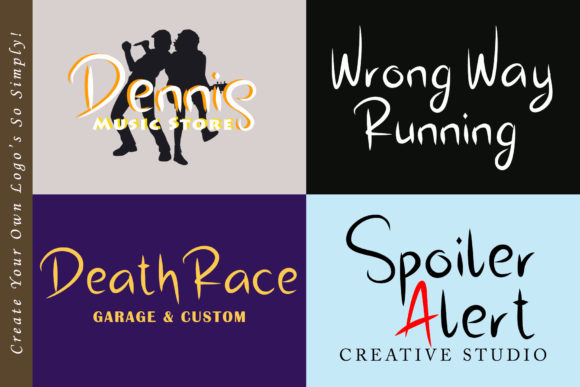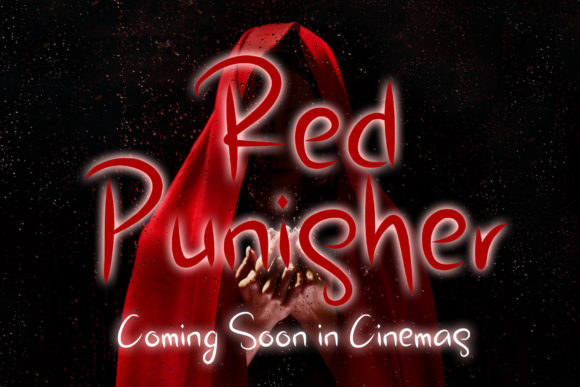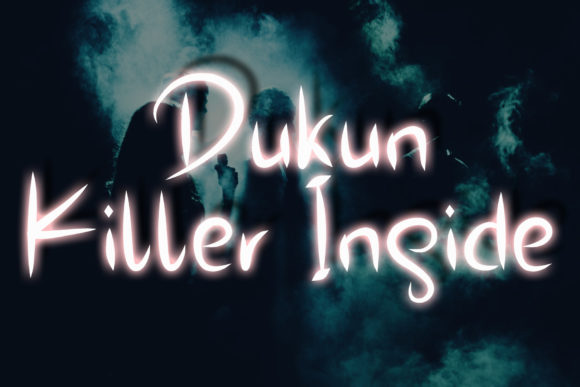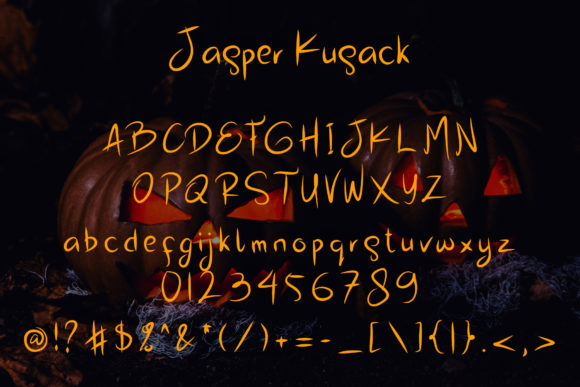
Introduction to Jasper Kusack Font
Jasper Kusack is a natural and smooth script, perfect for adding a bold touch to any design project.
Get inspired by its experimental style .
Key Features of Jasper Kusack Font
Why Choose Jasper Kusack Font?